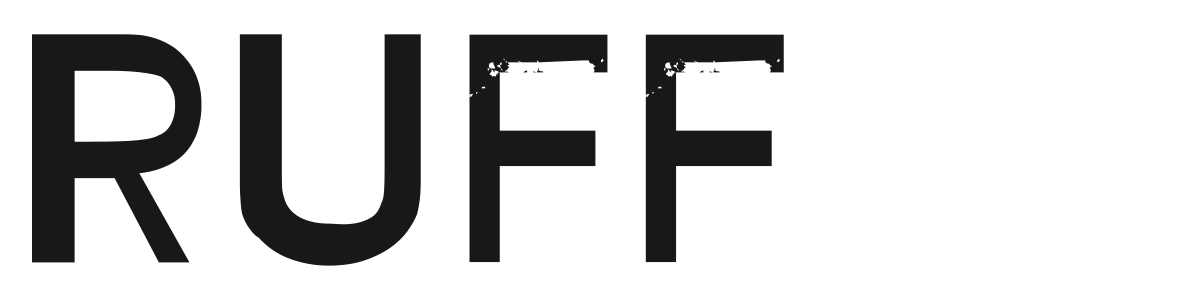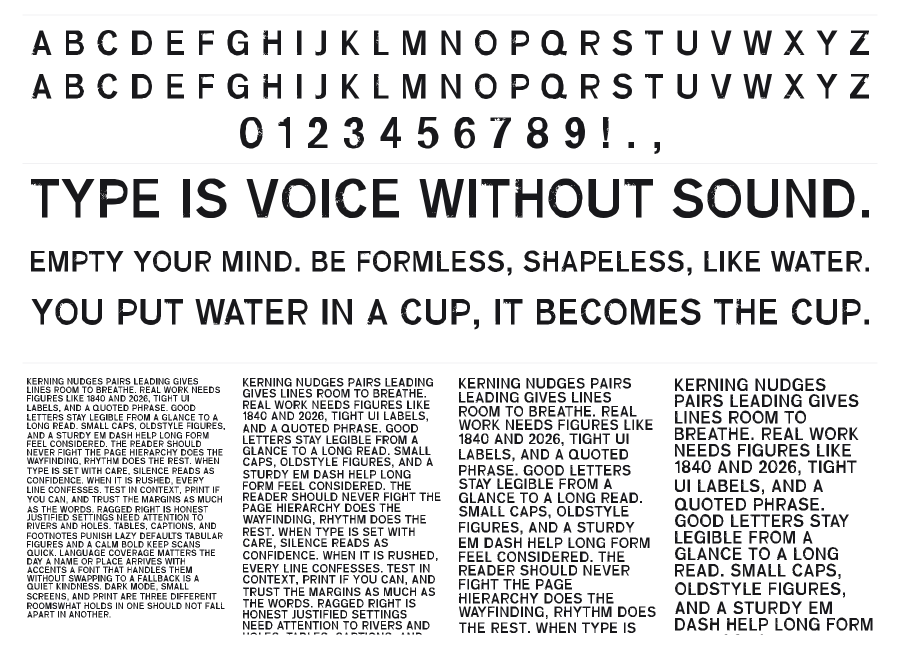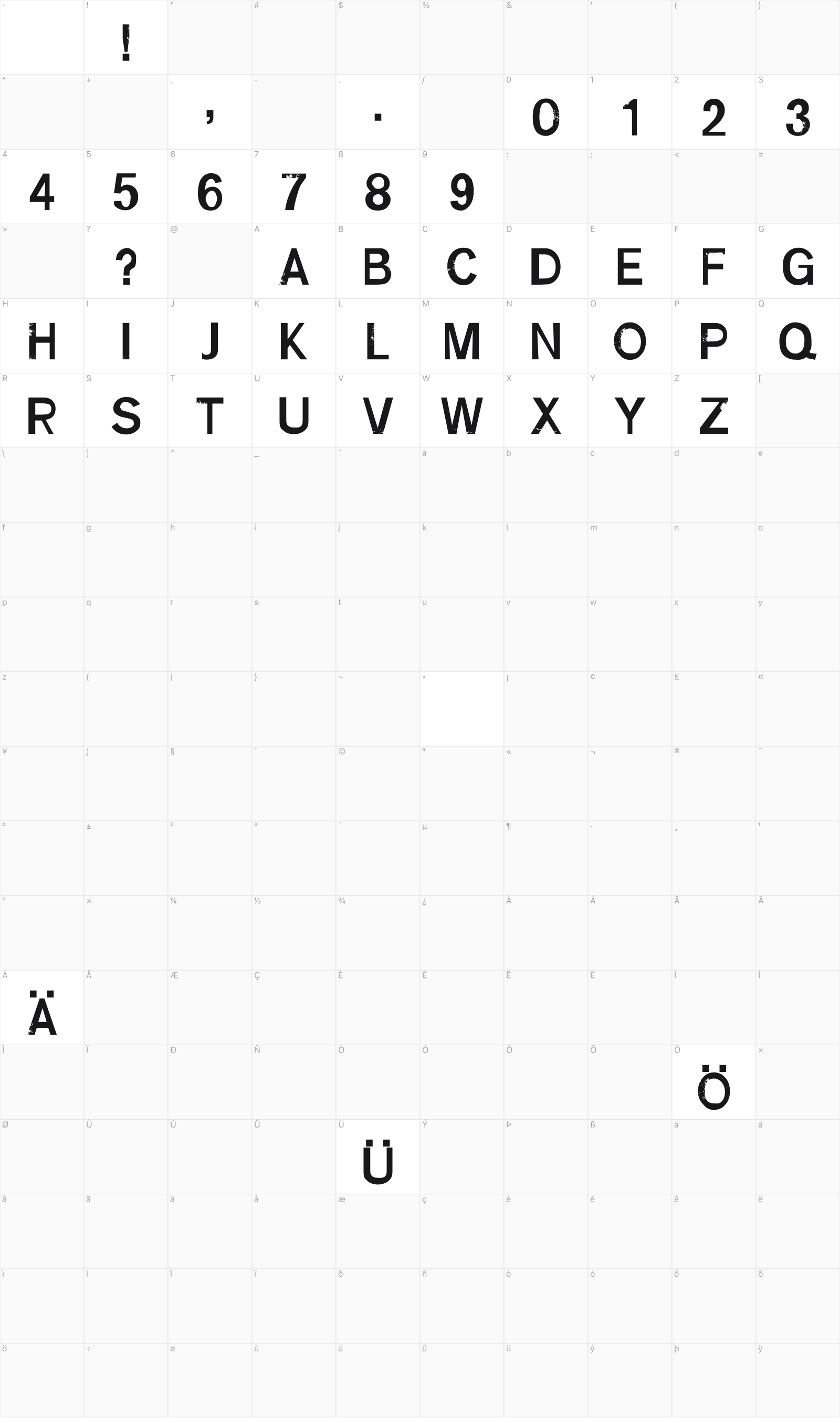
Ruff
by Nils Merkel
Ruff is a bold grotesque sans-serif dragged through decades of wear. Every character carries the rough texture of aged rubber stamps or degraded letterpress printing, with ink dropout and eroded edges across the set. It brings immediate grit to posters, album covers, and brand marks that need attitude without ornament.